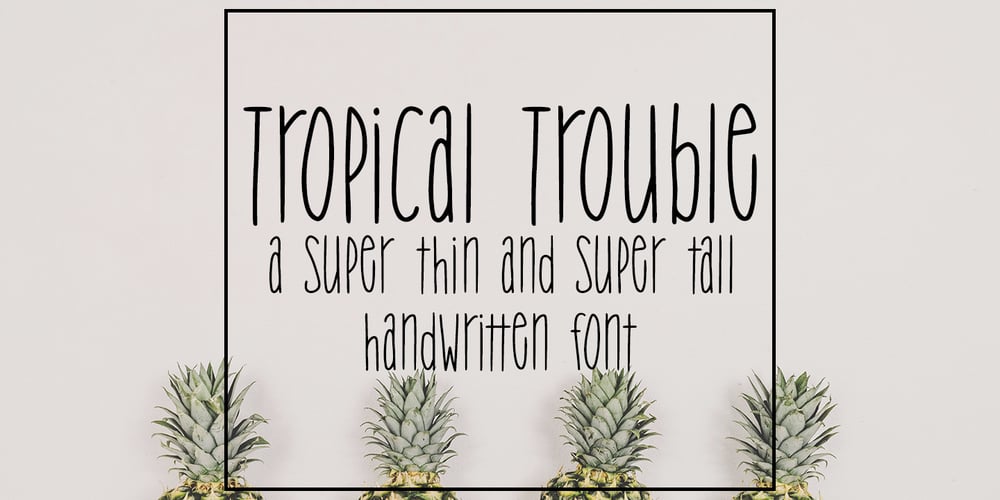
Tropical Trouble Font Family was designed by Tate Chaffin and published by SavoringSurprises. Tropical Trouble contains 2 styles and family package options. Tropical Trouble is a hand lettered sans-serif font. The super tall and super skinny font could be used for a variety of projects, such as labels for a jar or a name on a tumbler! Contains over 200 accented characters for language support. Some of the languages supported are: English, Spanish, Portuguese, German, Italian, French, Polish, Catalan, Irish, Norwegian, Croatian, Gaelic, and more! If you would like to know if a certain language is supported, please contact me with the language and/or any special characters you want to know about.